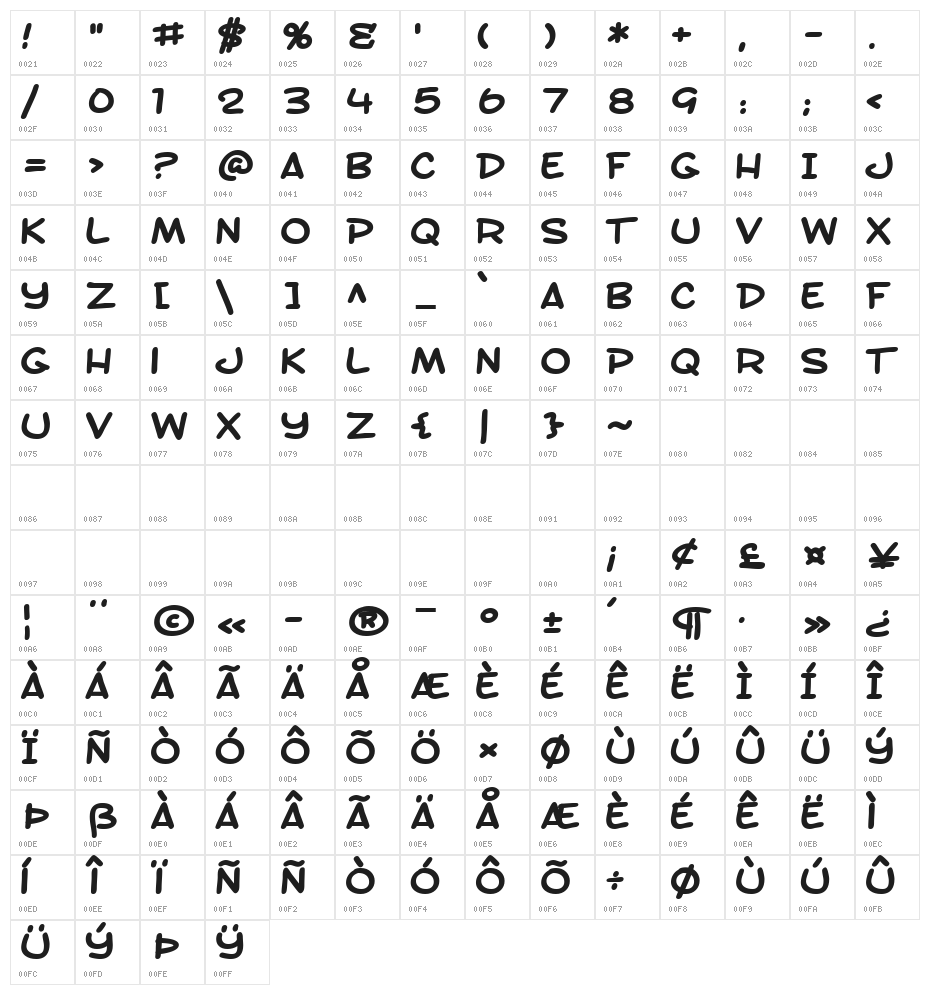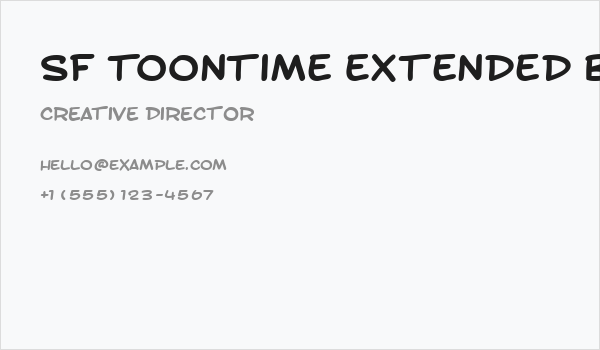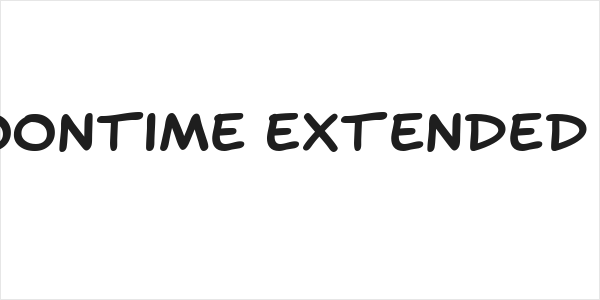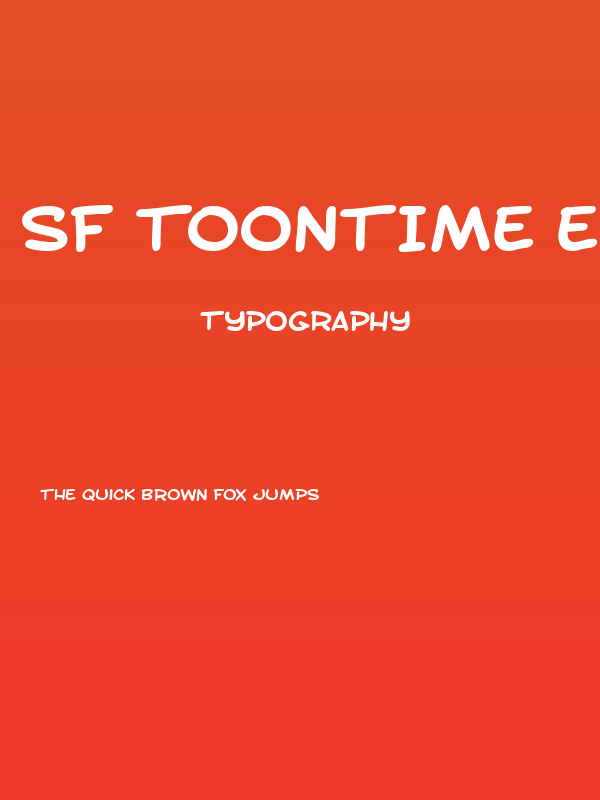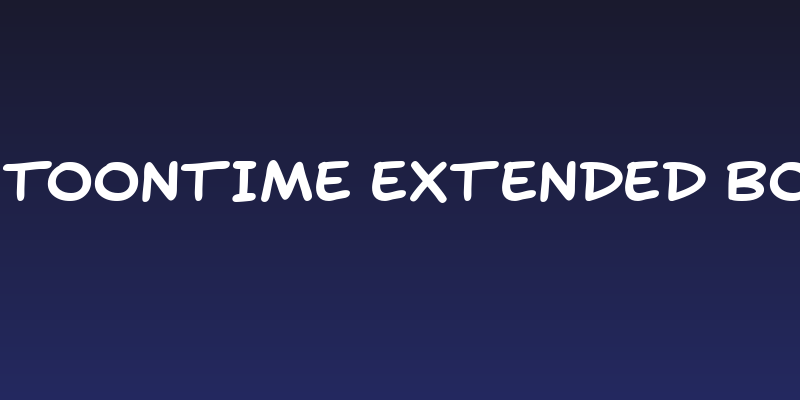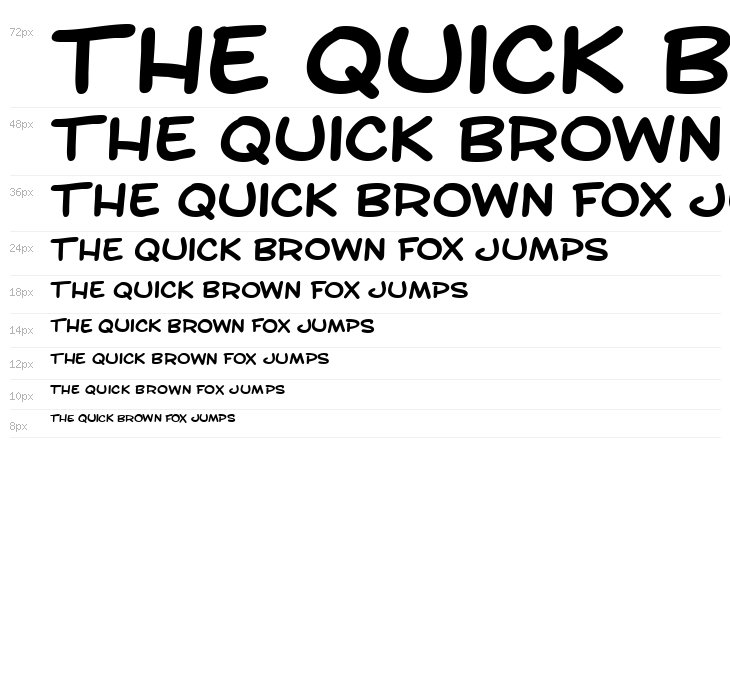
SF Toontime Extended Bold Font
SF Toontime Extended Bold Description
This playful and bold font features rounded, cartoon-like characters that exude a sense of fun and whimsy. The letters are slightly tilted, adding a dynamic and lively feel to the text. The strokes are thick and consistent, providing a strong visual impact. The font maintains a uniform width across all characters, ensuring readability while retaining its unique style. Its informal and approachable appearance makes it ideal for projects that aim to convey a sense of humor or lightheartedness.
| Overall Style | Playful, Fun, Whimsical |
| Proposed Projects | Perfect for children's books, comic strips, playful branding, and casual event invitations. |